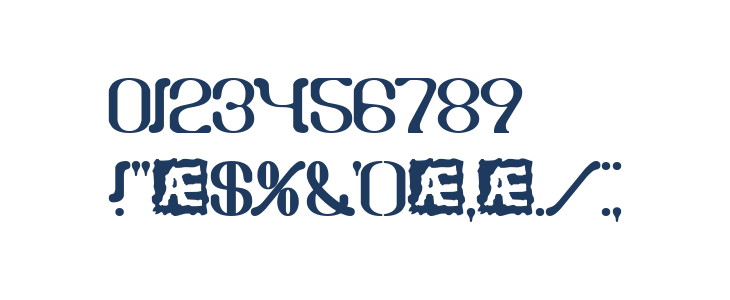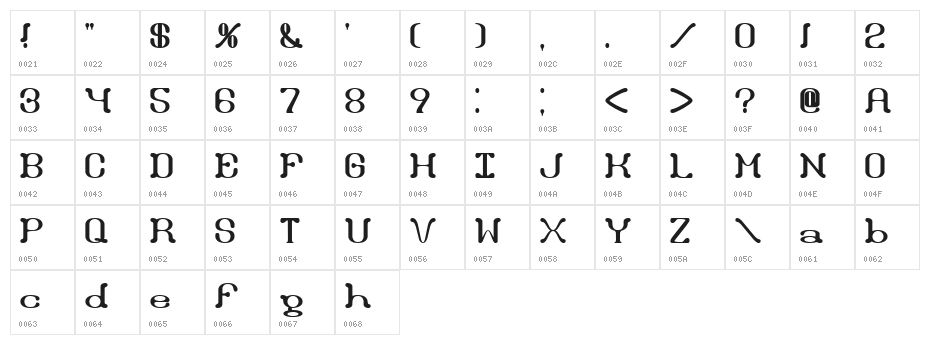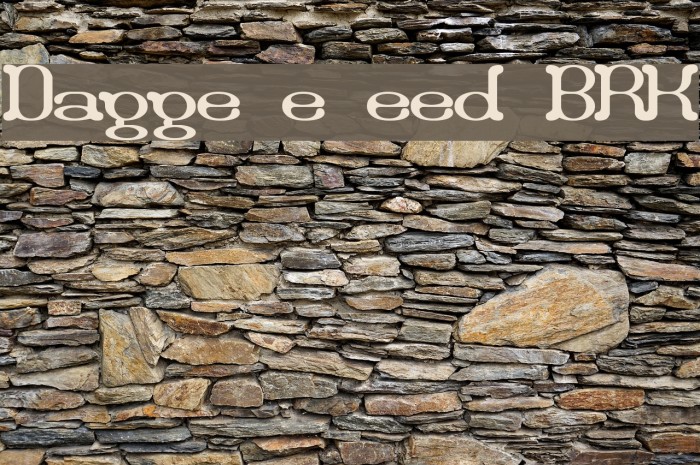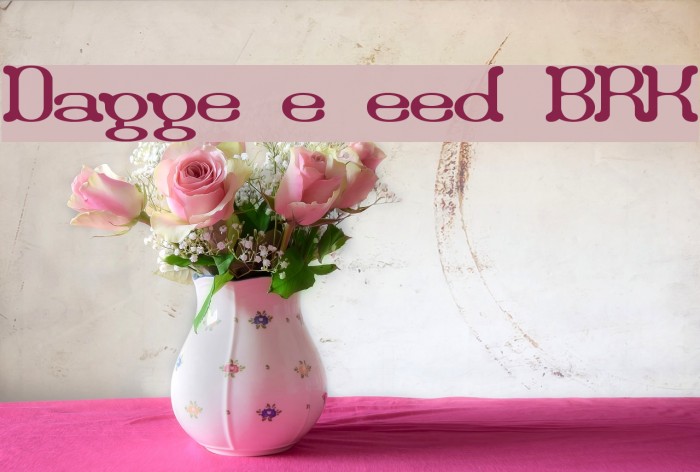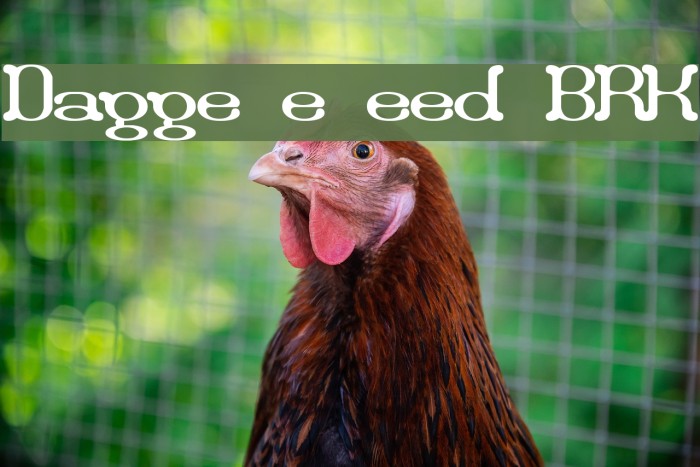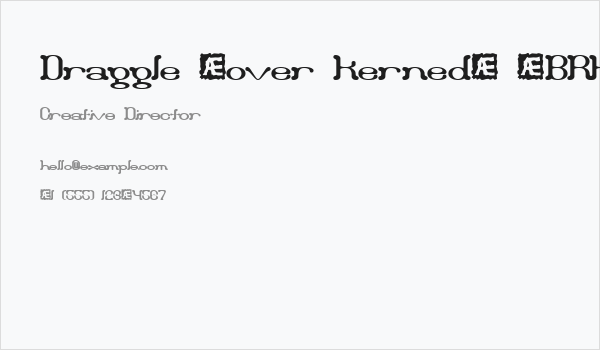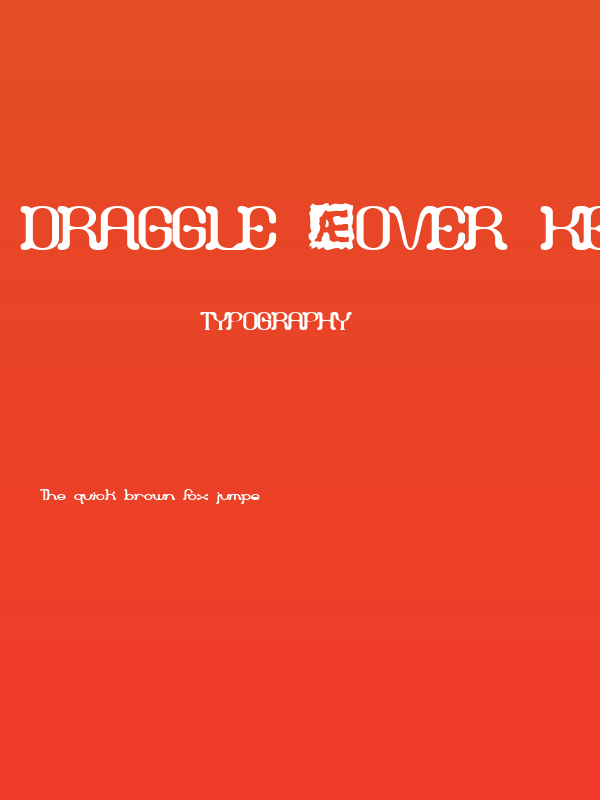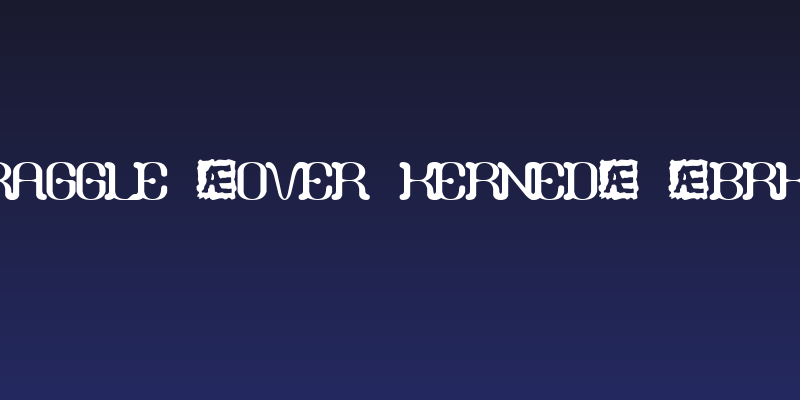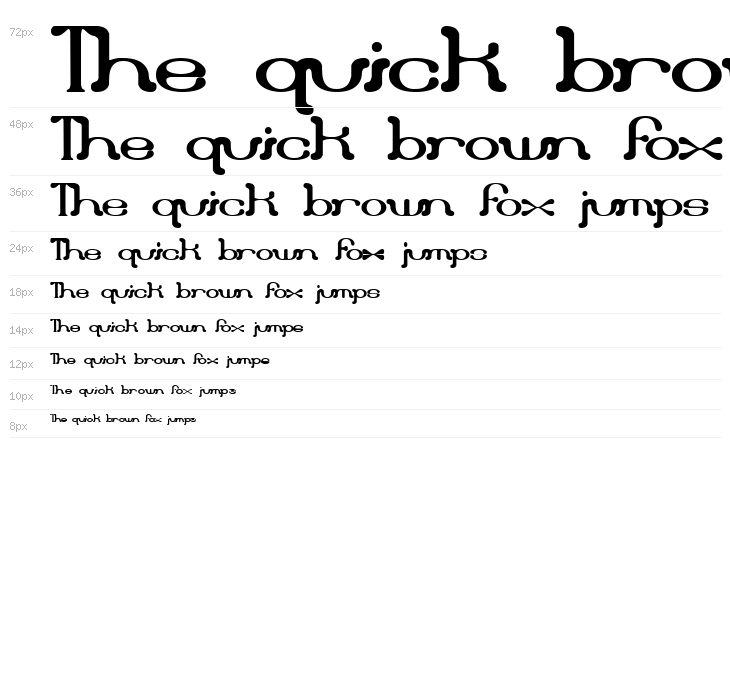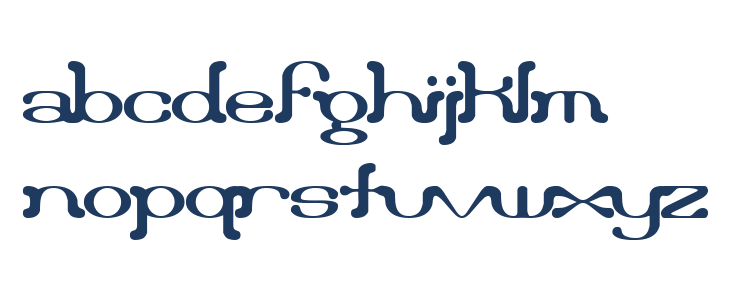
Draggle [over kerned] [BRK] Font
Draggle [over kerned] [BRK] Description
This font features a unique and playful design with exaggerated curves and loops, creating a whimsical and decorative appearance. The characters are bold and have a high contrast between thick and thin strokes, giving them a dynamic and eye-catching look. The overall style is reminiscent of retro and vintage aesthetics, with a modern twist. The uppercase and lowercase letters maintain a consistent style, while the numbers and special characters add a quirky touch with their distinct shapes. This font is ideal for creative projects that require a bold and artistic flair.
| Overall Style | Retro, Modern, Decorative |
| Proposed Projects | Ideal for posters, album covers, branding, and any project needing a bold, artistic touch. |